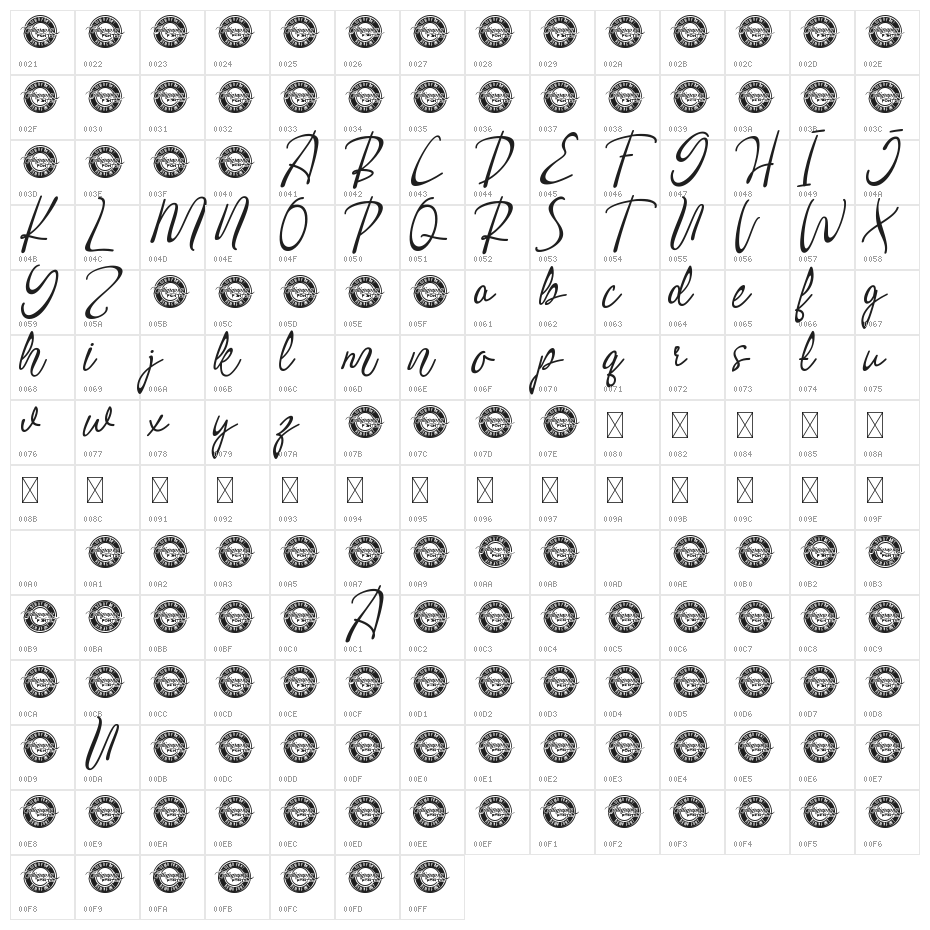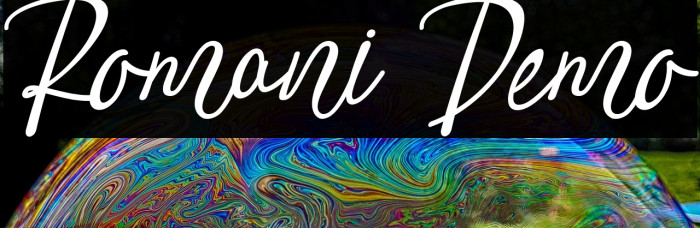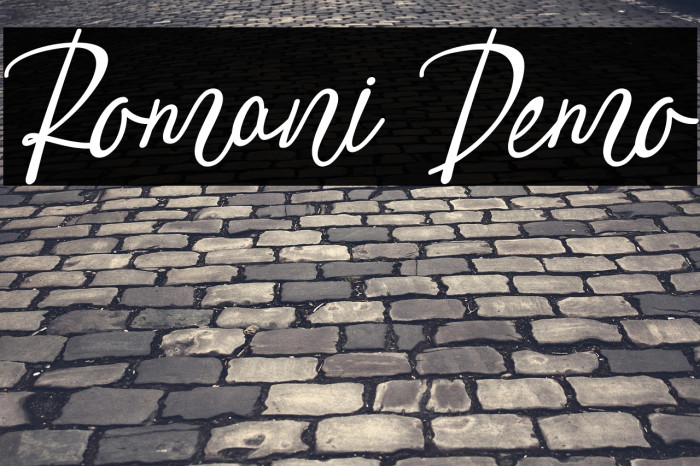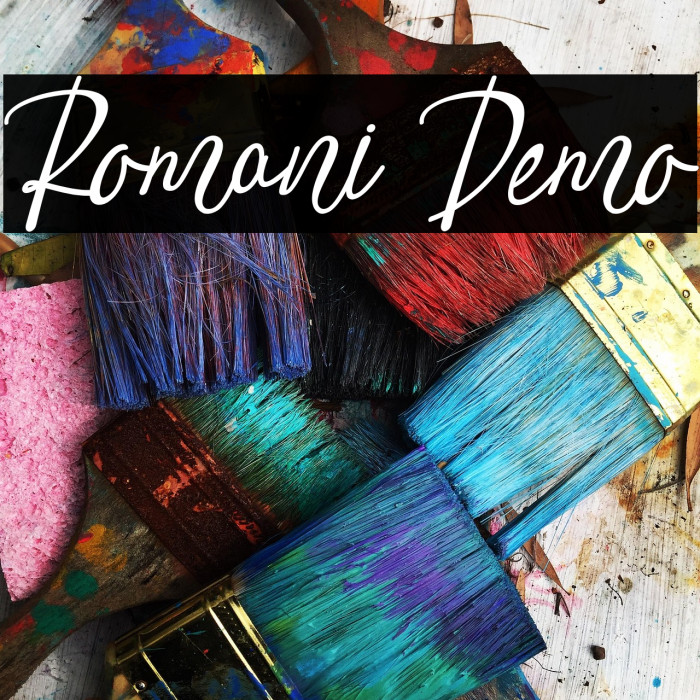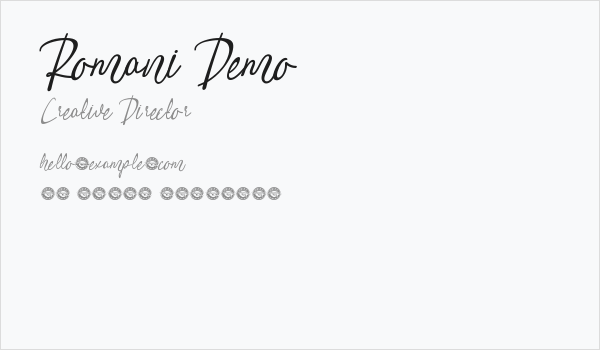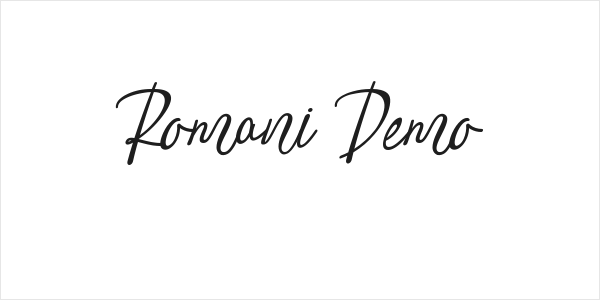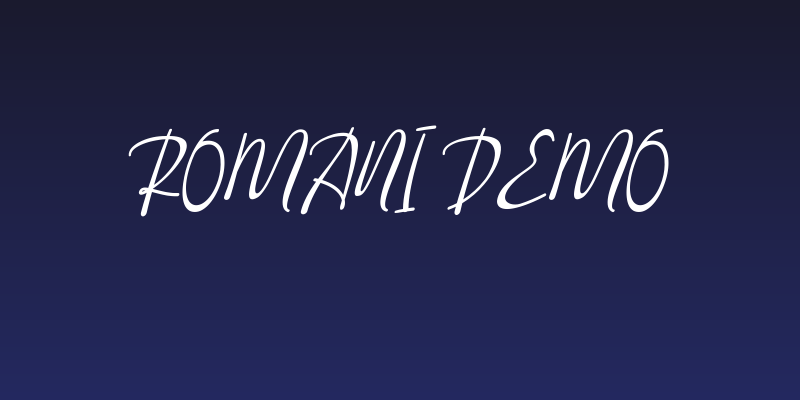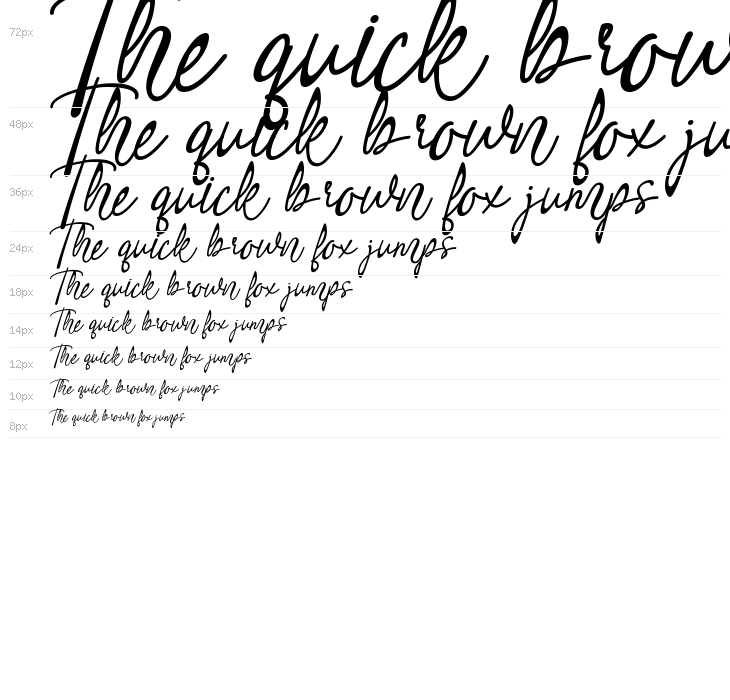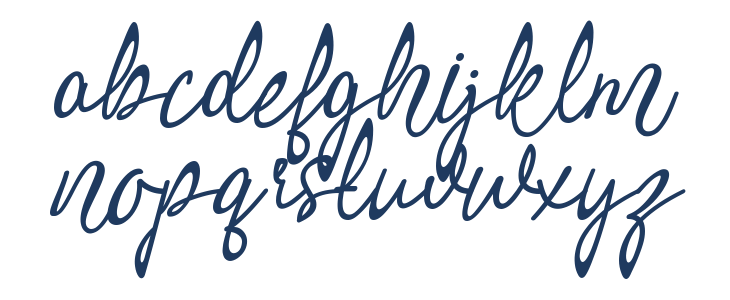
Romani Demo Font
Romani Demo Description
This font features a dynamic and fluid script style, characterized by its elegant and flowing letterforms. The uppercase letters exhibit a graceful, cursive quality with smooth curves and a slight slant, creating a sense of movement and sophistication. The lowercase letters maintain this fluidity, with some letters connecting seamlessly, enhancing the handwritten appearance. The font's overall design is both stylish and legible, making it suitable for a variety of creative applications. The special characters are integrated seamlessly, maintaining the font's cohesive look. This script style is ideal for projects that require a personal touch, such as invitations, greeting cards, and branding materials.
| Overall Style | Elegant, Handwritten |
| Proposed Projects | Ideal for invitations, greeting cards, branding, and any project requiring a personal, elegant touch. |